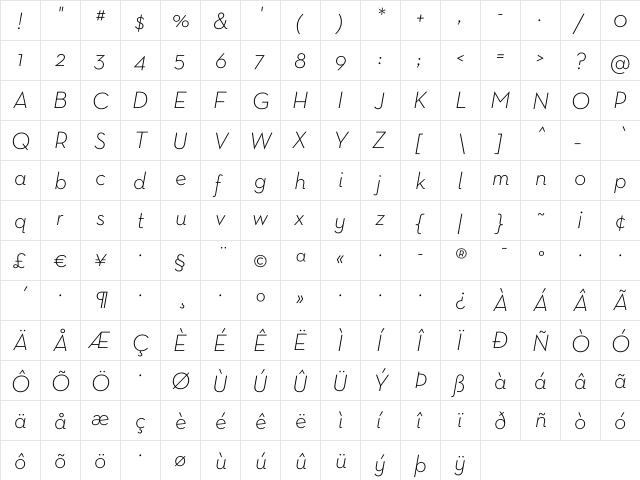
Neutra Text Light Italic
| Designer | Christian Schwartz |
Design Context for Neutra Text Light Typeface
Neutra Text Light is a composed and adaptable typeface that performs quietly and consistently across a wide range of design contexts. The slanted form adds forward momentum and visual energy. The delicate stroke weight brings airiness and refinement to layouts.
Pro Tip: Try Neutra Text Light for annotation and caption copy alongside an upright companion — the contrast in angle creates a dynamic but ordered typographic system.